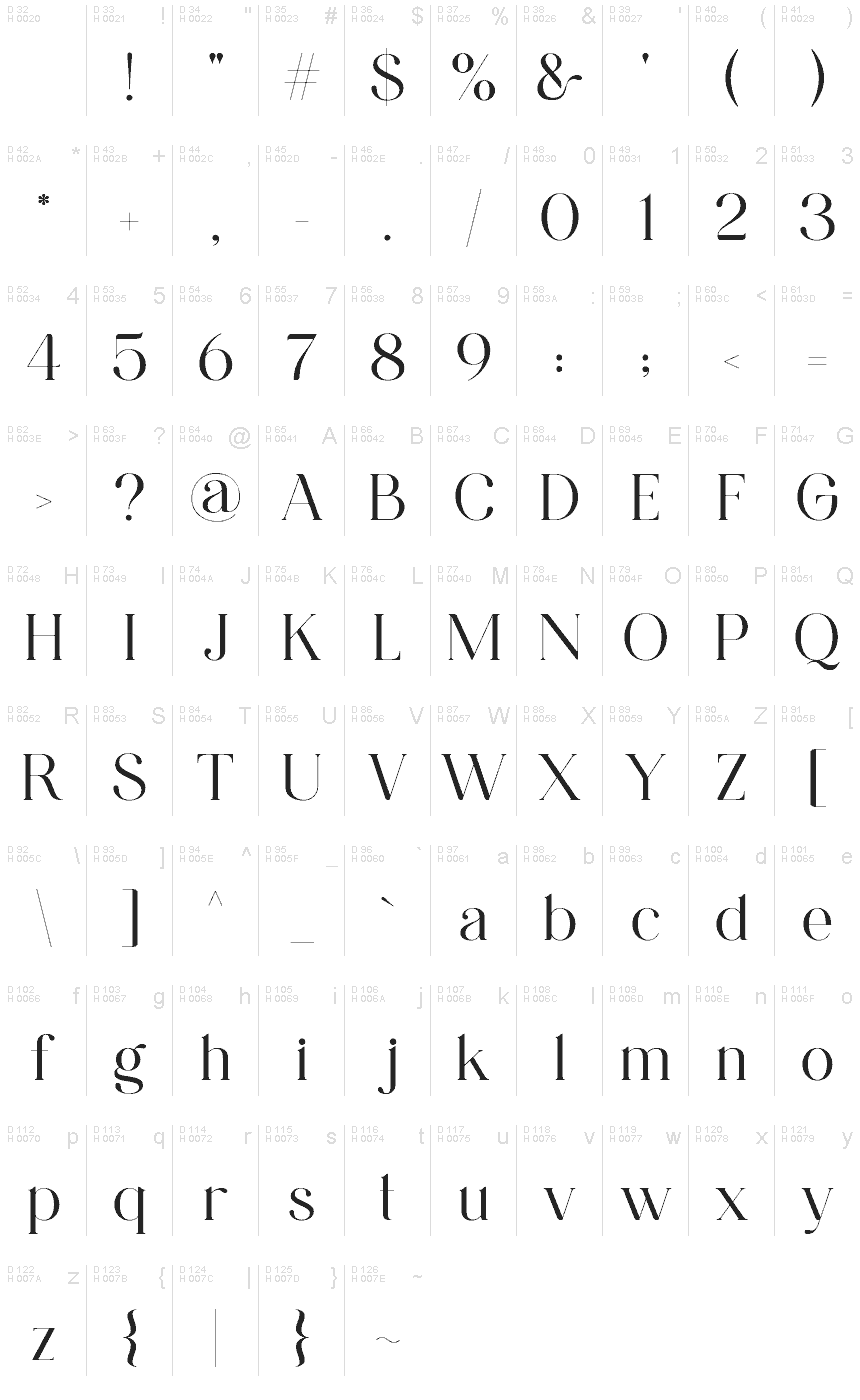
NCL Gastrub
NCL Gastrub font by Enxyclo Studio presents an elegant twist on serif typography, offering a sophisticated and sleek appearance for all your written needs. Stylish and modern, its refined feel makes it suitable for elevating the visual quality and readability of any text while maintaining striking aesthetics.
This free serif font is perfect for enhancing logos, branding material, magazine headlines, wedding invites, posters, packaging designs, social media posts, T-shirt printings along fashion items. Use it in books covers or movie titles/sequences to take every design to a whole new level.